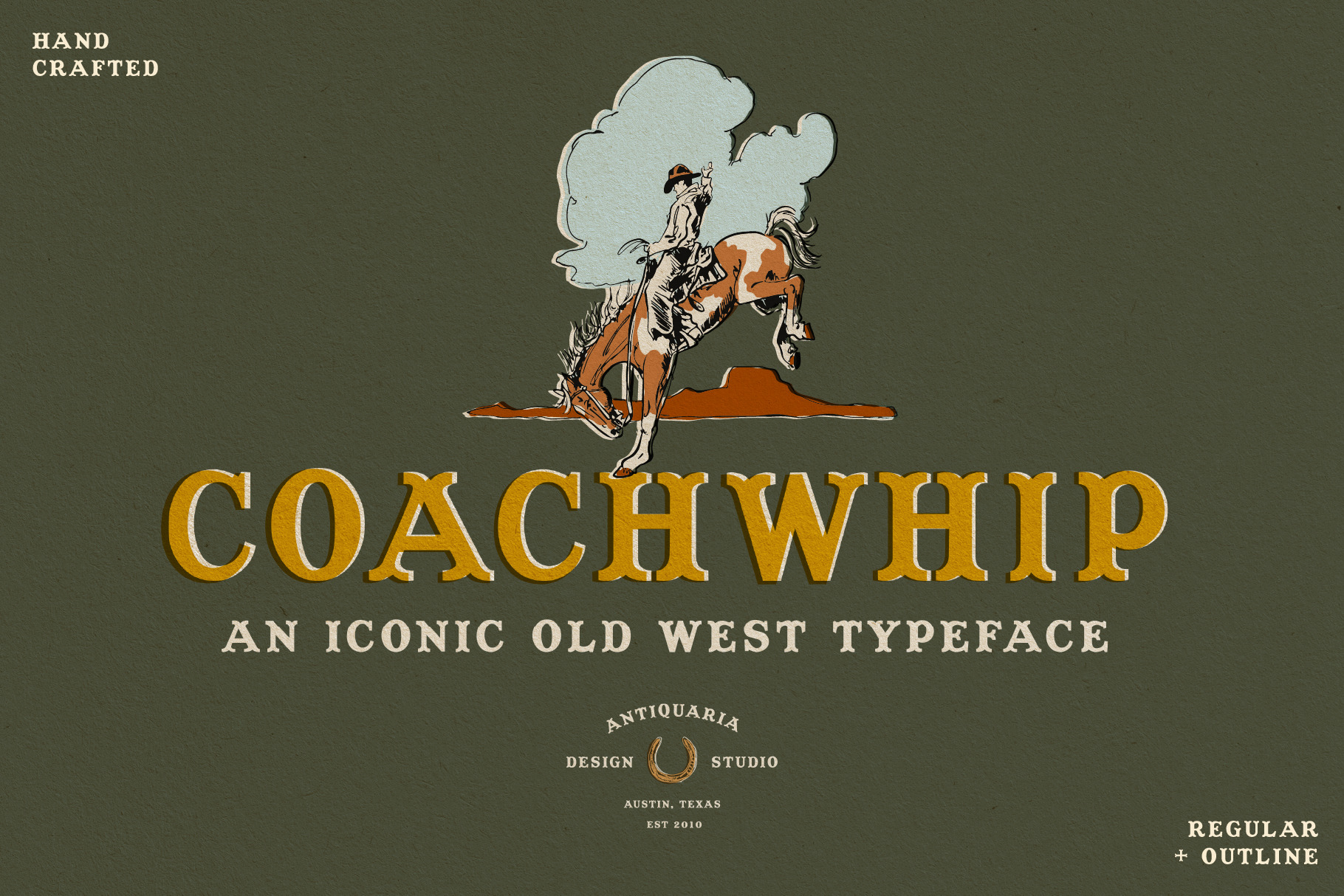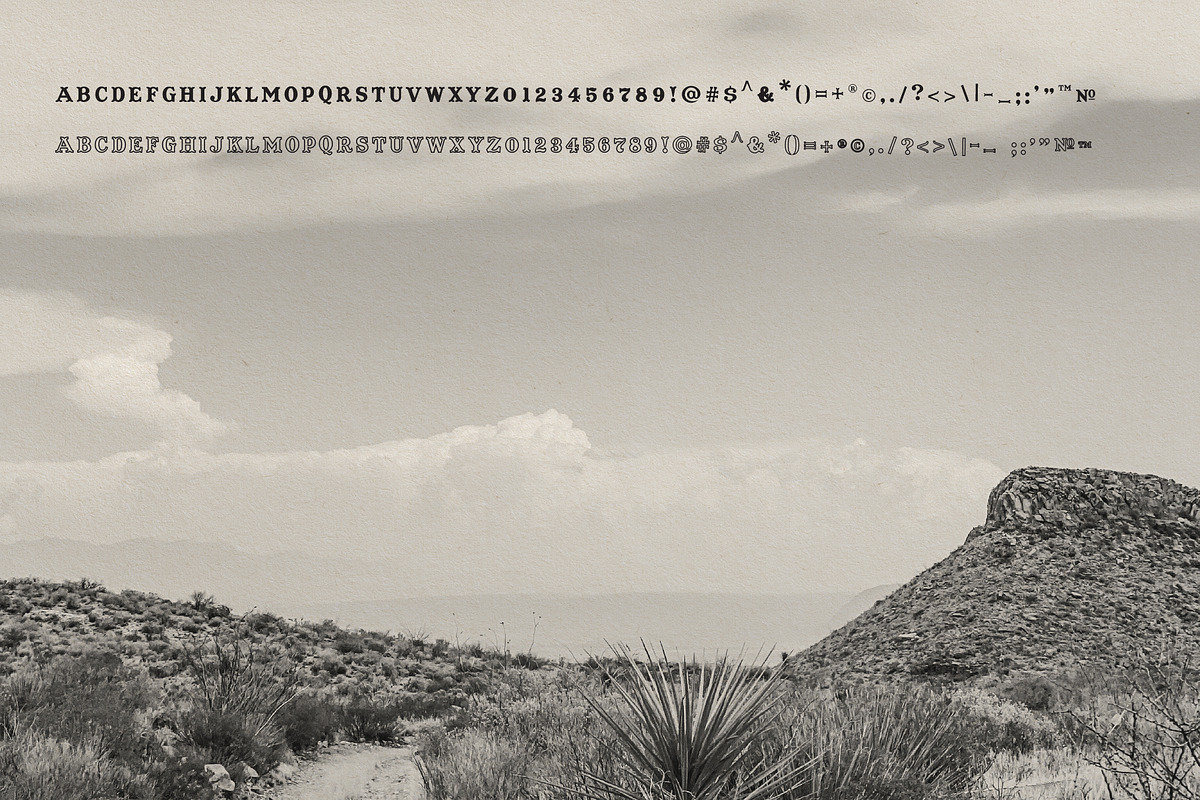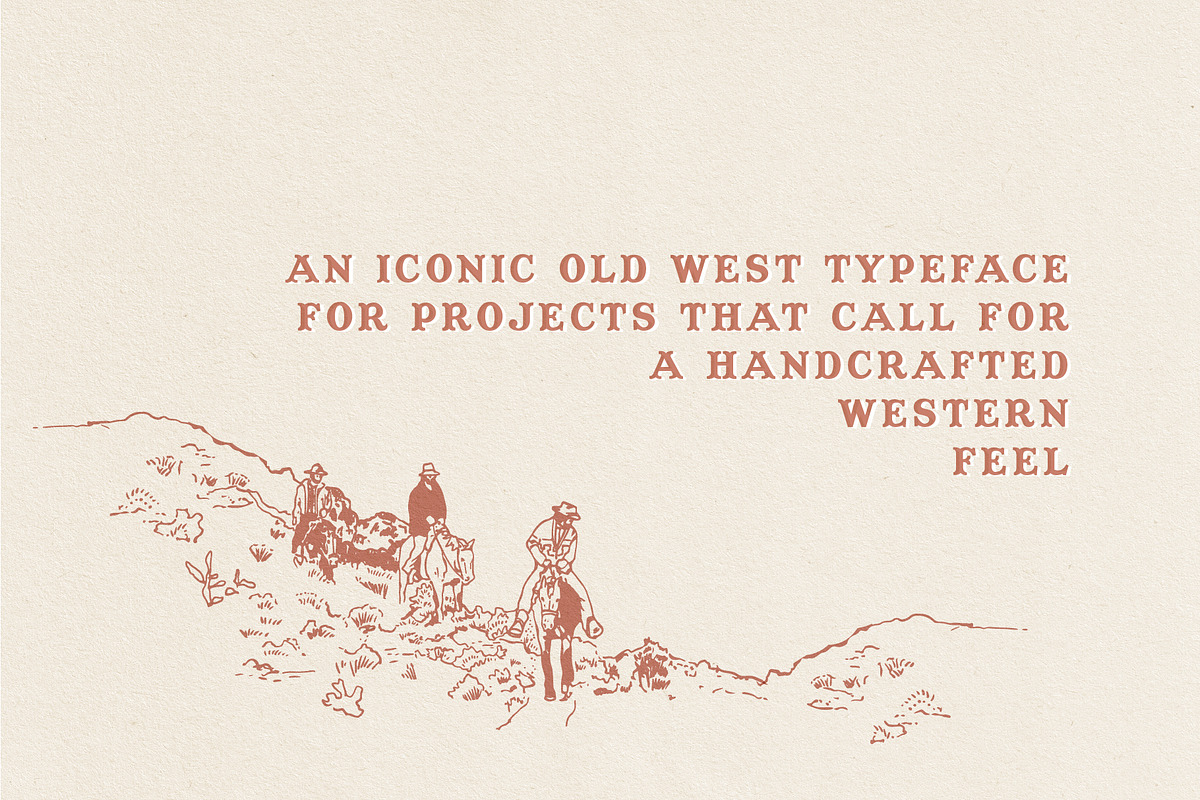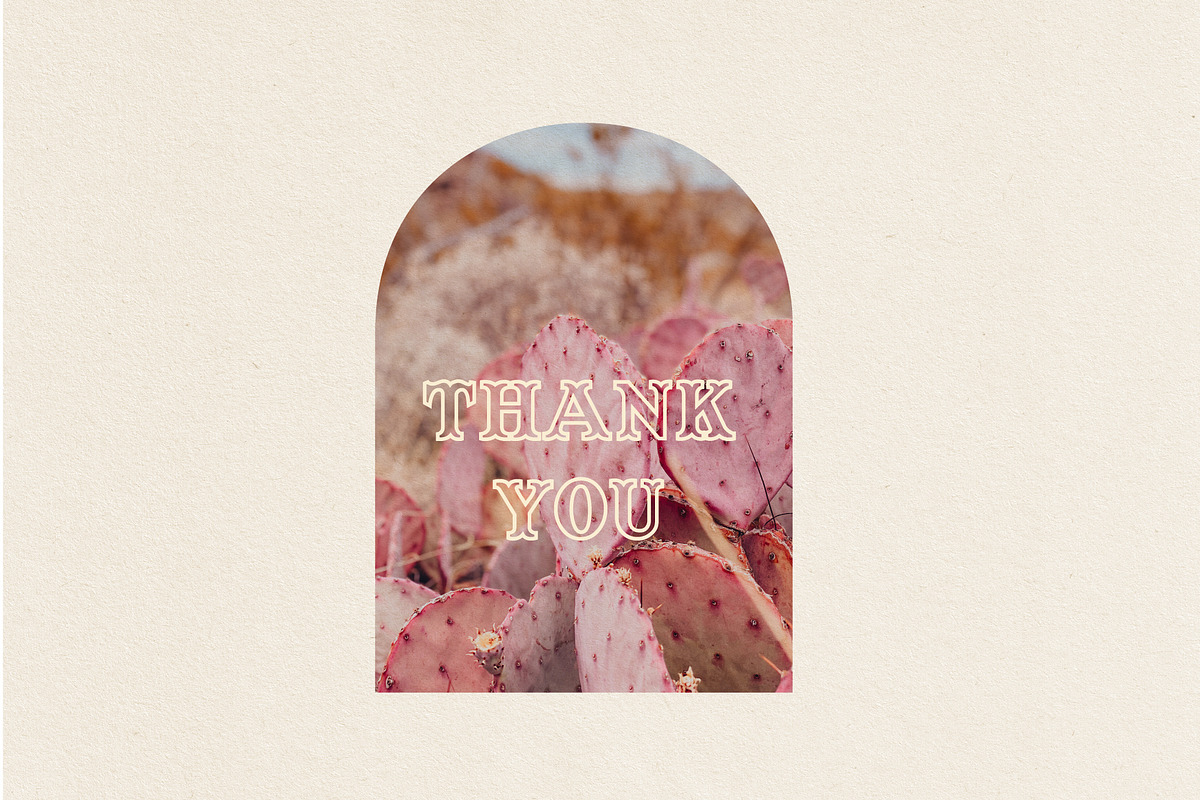
Coachwhip - A Western Font
Coachwhip is a handcrafted typeface by Antiquaria. With it's iconic old west styling, it's perfect for branding, marketing, invitations, or wherever your project need that western feel. This typeface is fully functional with numbers and punctuation. Giddy Up!
Handcrafted by Emma James of Antiquaria in Austin, Texas.